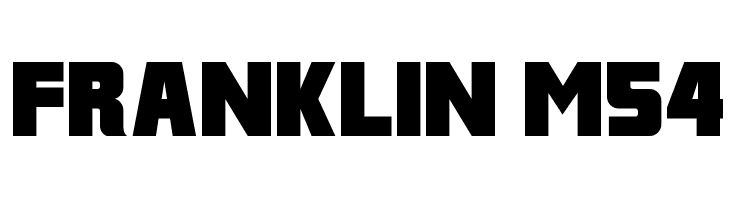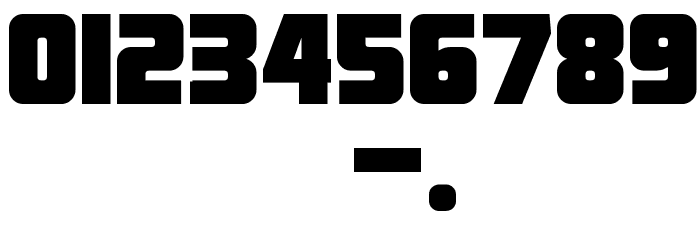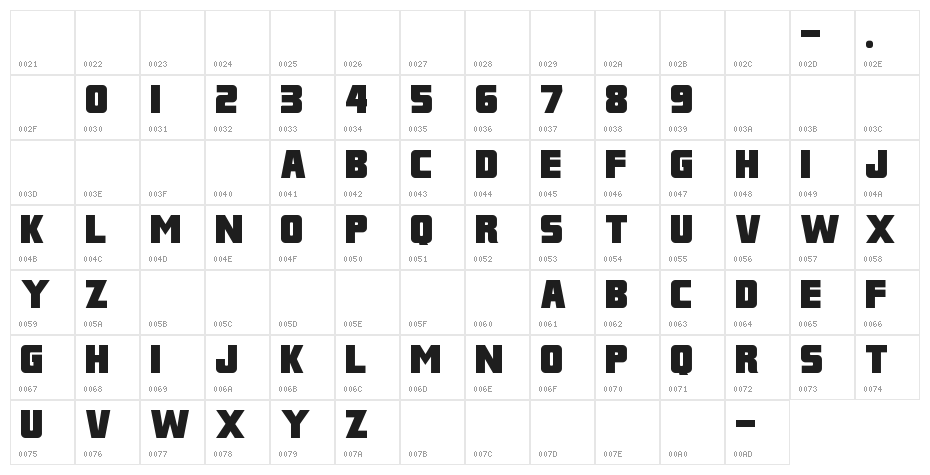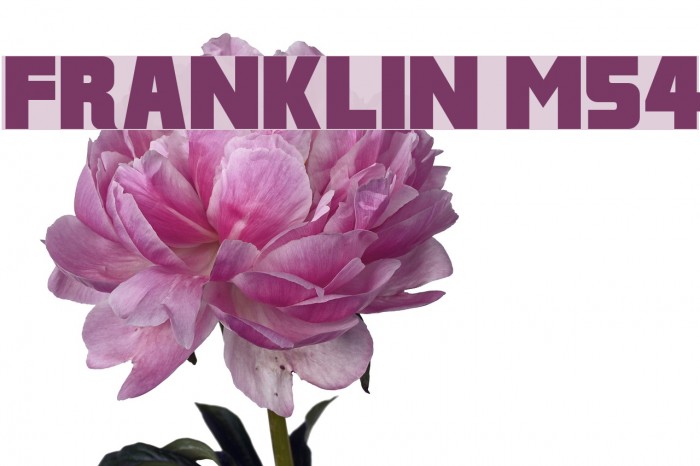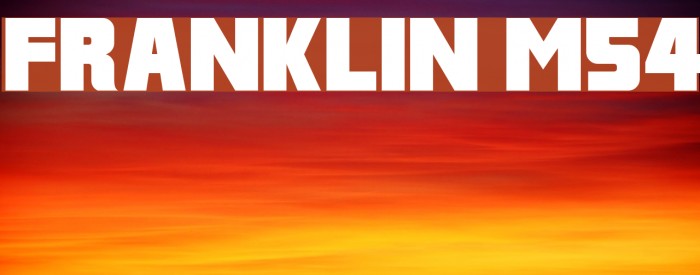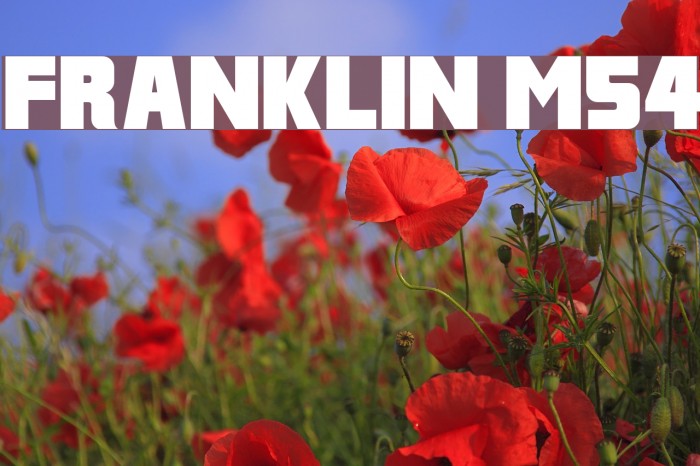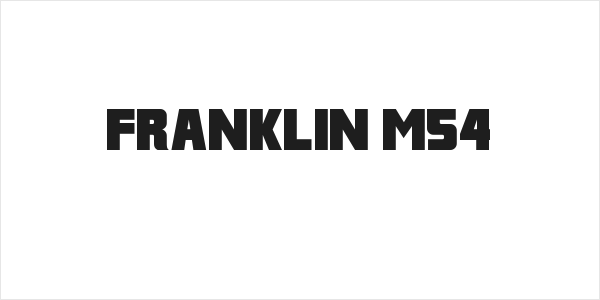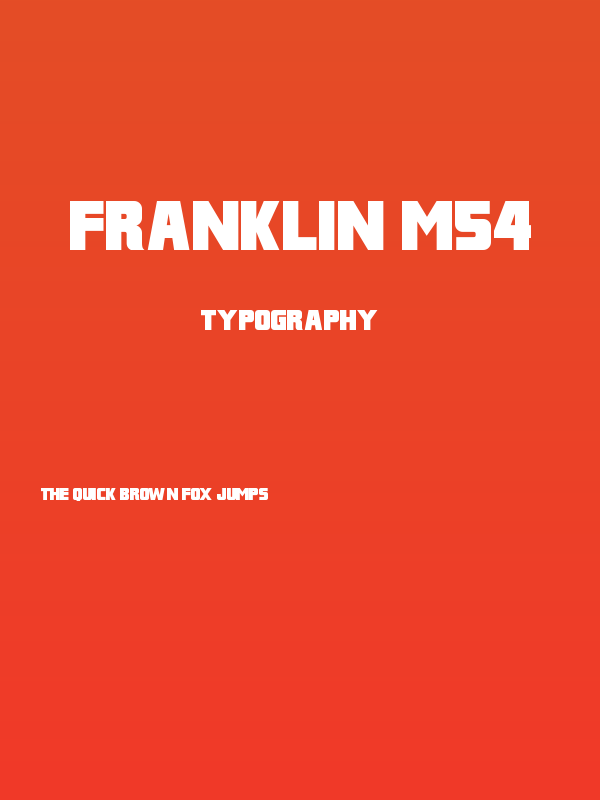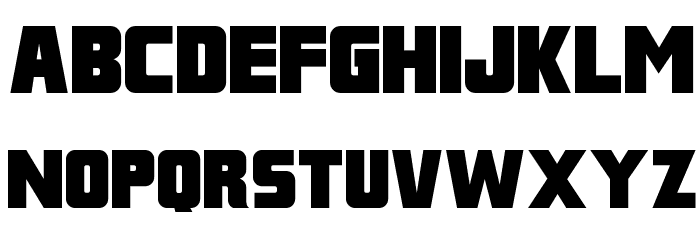
Franklin M54 Font
Franklin M54 Description
This font is a bold, geometric sans-serif typeface characterized by its strong, block-like appearance. The letters are uniformly thick, with minimal contrast between strokes, giving it a robust and impactful look. The characters are wide and have a slightly condensed appearance, making them ideal for creating a powerful visual presence. The font's design is modern and clean, with a focus on clarity and readability. Its boldness and geometric shapes make it suitable for attention-grabbing headlines and titles. The numbers and special characters maintain the same bold and structured style, ensuring consistency across all elements.
| Proposed Projects | Ideal for posters, headlines, branding, and advertising where a strong visual impact is needed. |